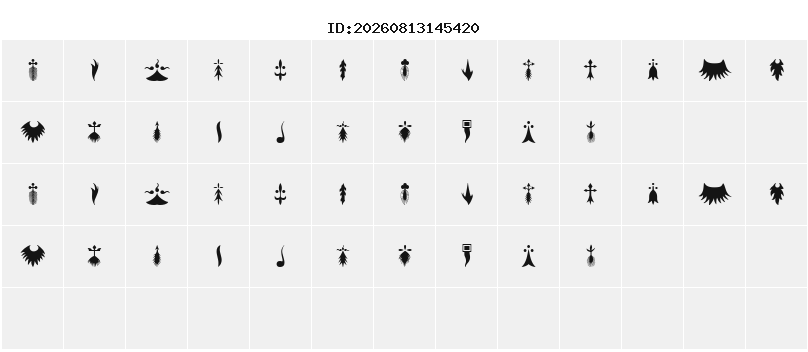
• Font Name: RTA Ermine
• Description: RTA Ermine details interpretations of the Arctic weasel's black spot of tail seen decorating coats of arms and furry trim of royalty to include crowns. Ermine spots became common-place for double linings of mantle (cape) or as individual charges placed upon shield. Ermine spots alone decorate the designated shield of Britain. RTA Ermine is based on artwork created by Gary R. Smith of Round Table Arms (http://groups.yahoo.com/group/RoundTableArms) Images used with permission. RTA Ermine is a free font. You can use the font any way you want to. You can share the font if you wished to. Most of all, enjoy the font! Have fun! Have Fun with Fonts December 5, 2012